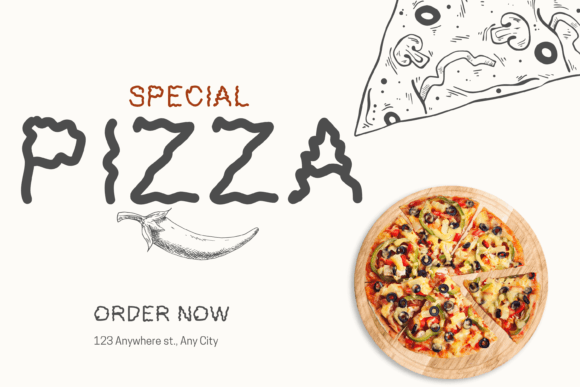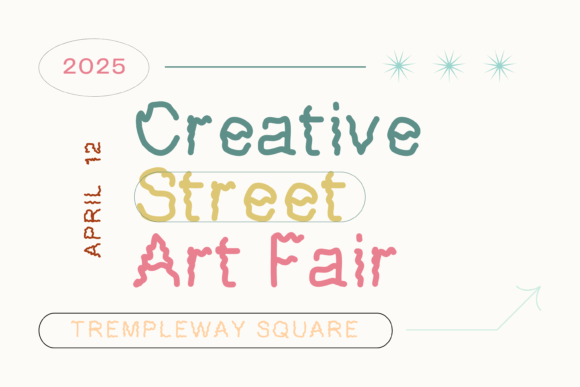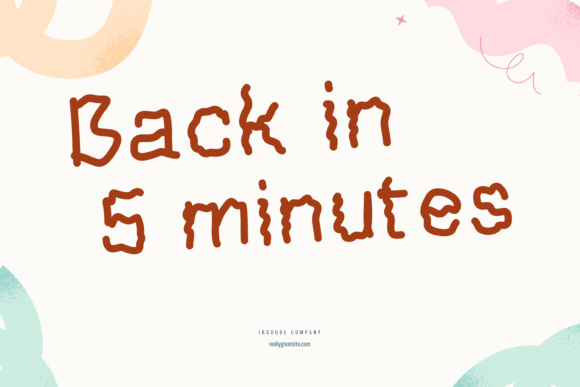
Introduction to Pasta Font
Pasta is a joyful, funky font with a strong, retro aesthetic.
This font is ideal for designs that call for a whimsical accent It is appropriate for logos, packaging, products, book covers, posters, and much more.
Key Features of Pasta Font